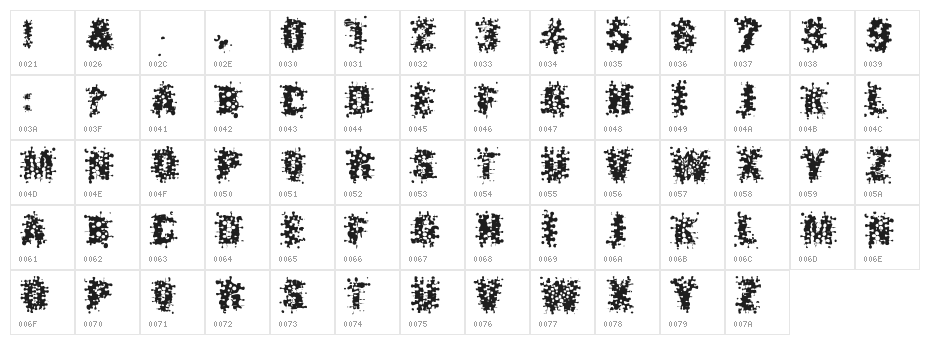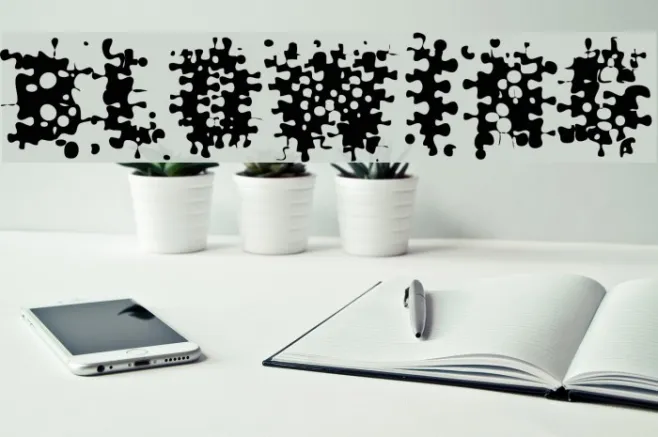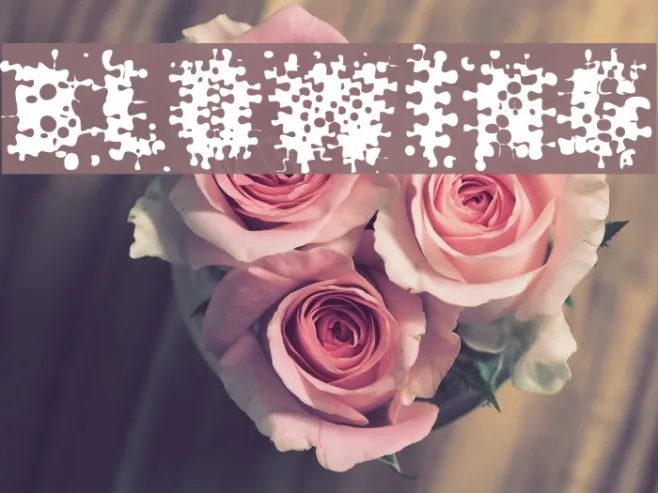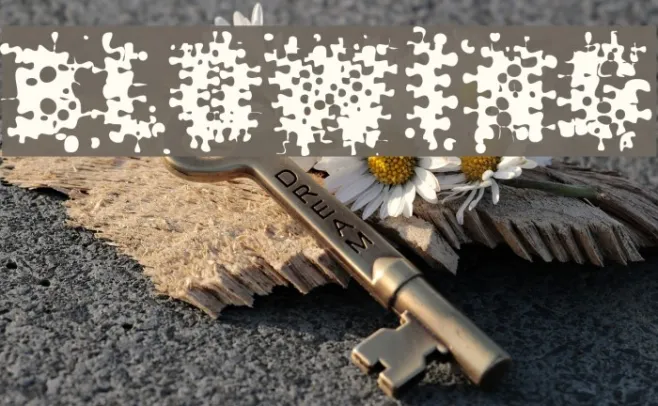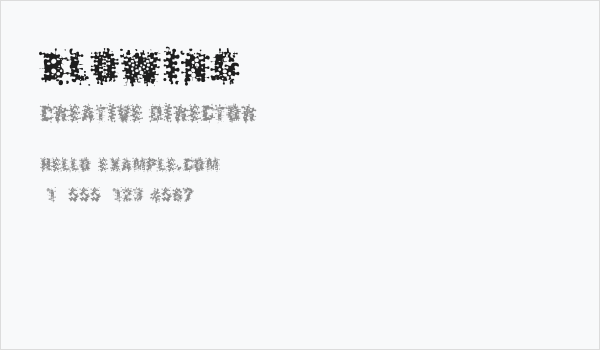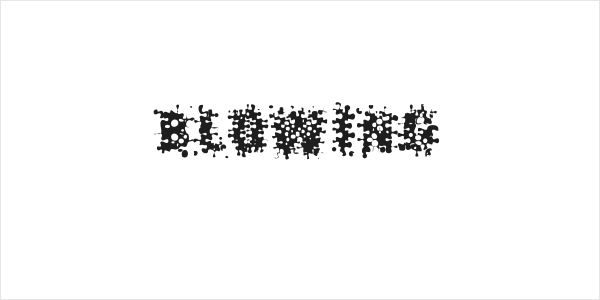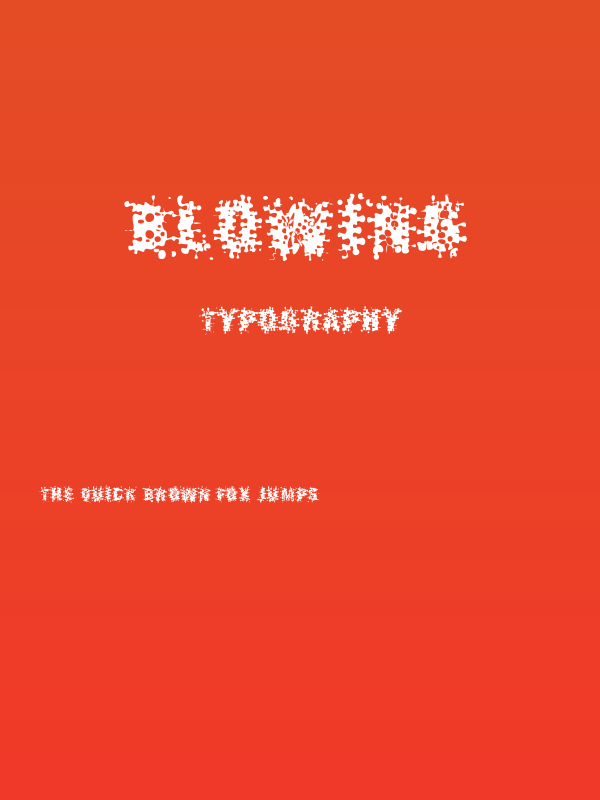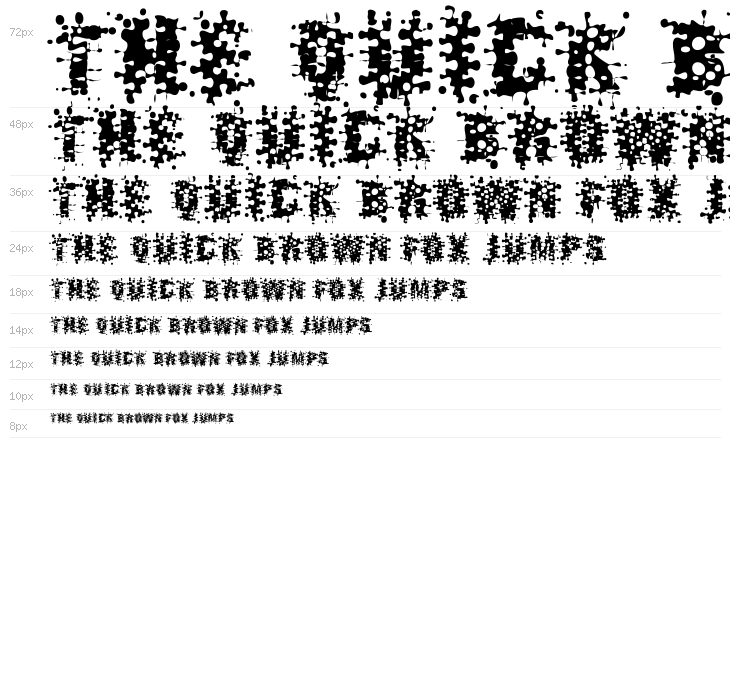
Blowing Font
Blowing Description
This font features a unique and artistic design, characterized by a series of interconnected dots and splatters that form each letter and number. The style is highly decorative, with a playful and chaotic appearance that resembles ink blots or paint splashes. Each character maintains a consistent structure, yet the irregular edges and varying dot sizes give it a dynamic and organic feel. The font is visually striking and captures attention with its bold and unconventional aesthetic, making it ideal for creative and artistic projects.
| Use Case | Headlines, Logos, Artistic projects |
| Proposed Projects | Ideal for artistic projects, posters, album covers, and creative branding that seeks a bold and unconventional look. |